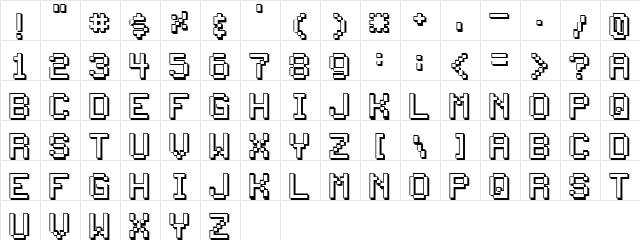
Back to 1982 Regular
Design Context for Back to 1982 Typeface
Back to 1982 is a composed and adaptable typeface that performs quietly and consistently across a wide range of design contexts.